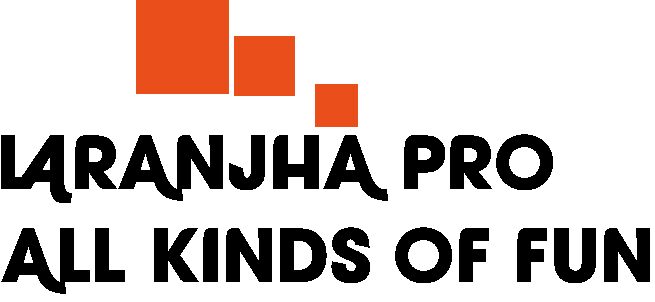
Laranjha Pro by Herb Lubalin and Tom Carnase of ITC is a free decorative display font with massive geometric lettering. Broad curves meet sharp cuts, narrow gaps, and unexpected overlaps. The forms feel tightly compressed and deliberately unruly.
Its dense construction suits fashion branding and music posters, where typography can become the main graphic event, yet the same interlocking shapes also fit experimental magazine covers and festival merchandise. The recurring sliced and fused forms can turn a name into an emblem, giving brands and products an assertive identity rooted in the lettering itself.
Laranja Pro was created by 8own.